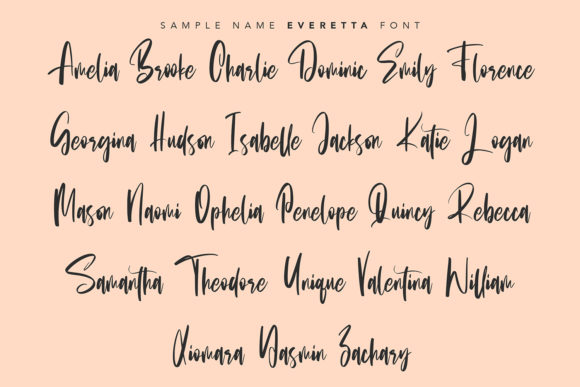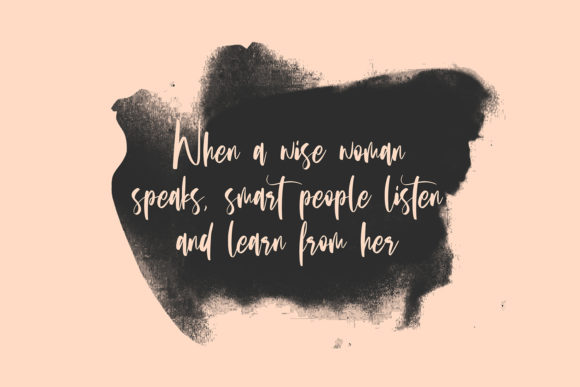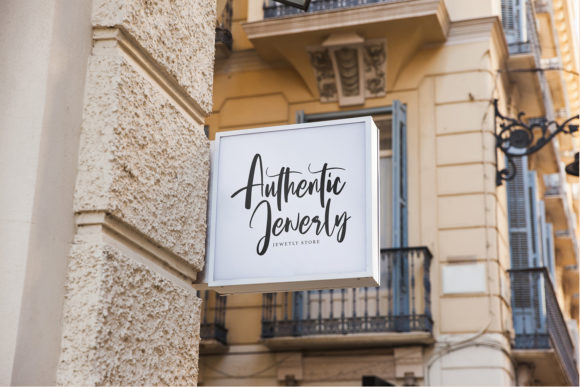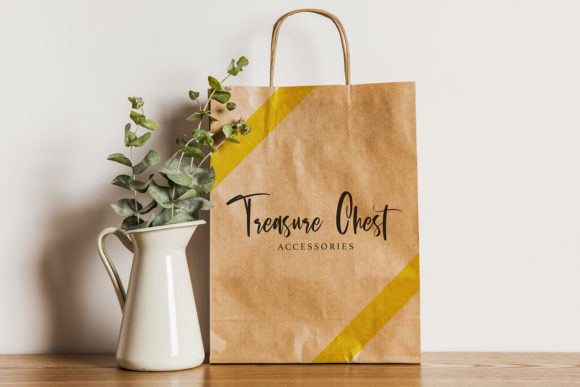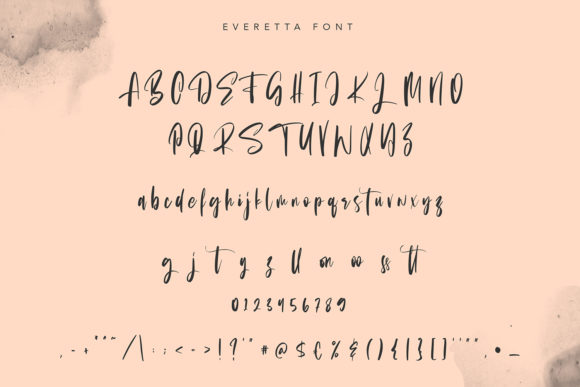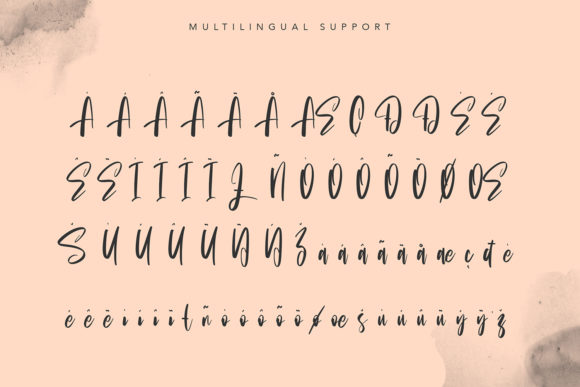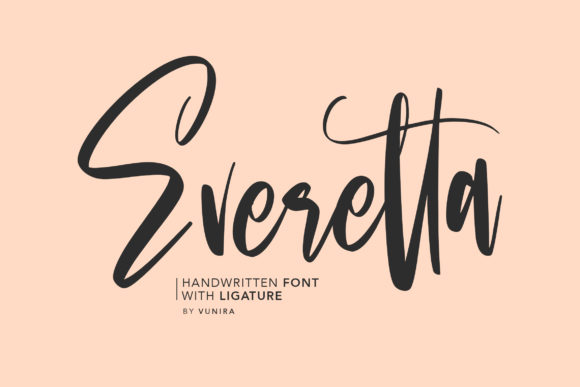
Discover the Elegance of Everetta Font: Elevate Your Designs with a Touch of Sophistication
Are you on the hunt for a font that exudes elegance, sophistication, and a dash of modern flair? Look no further than the Everetta Font, a stunning handwritten typeface that is sure to capture your heart. Designed with meticulous attention to detail, Everetta seamlessly blends classic calligraphic influences with a contemporary twist, making it the perfect addition to your design arsenal.
The Story Behind Everetta Font
Everetta Font is more than just a collection of letters; it’s a masterpiece crafted with passion and dedication. Its creator aimed to develop a font that not only pays homage to traditional calligraphy but also feels fresh and current. The result is a typeface that is both timeless and trendy, capable of enhancing any project with its unique charm.
What Makes Everetta Font Stand Out?
- Classy Calligraphic Influences: Everetta’s roots in calligraphy are evident in its fluid strokes and elegant letterforms. Each character is designed to reflect the beauty of handwritten calligraphy, giving your designs a personal and sophisticated touch.
- Contemporary and Fresh: While Everetta maintains a strong foundation in traditional calligraphy, it also boasts a modern sensibility that makes it versatile for a wide range of applications. Whether you’re working on a branding project, a wedding invitation, or a digital platform, Everetta fits right in.
- Versatility: One of the key advantages of Everetta Font is its incredible versatility. It can be used for everything from headlines and titles to body text, offering a consistent and stylish look across your designs.
- Emotional Connection: Fonts have the power to evoke emotions and set the tone for your message. Everetta, with its warm and inviting appearance, helps create a connection with your audience, making your designs more relatable and engaging.
How to Use Everetta Font in Your Projects
Integrating Everetta Font into your projects is a straightforward process that can elevate your designs in a significant way. Here are a few ideas to get you started:
- Branding and Logotypes: Use Everetta to create a memorable brand identity that stands out from the competition. Its unique and stylish letterforms can help your brand leave a lasting impression.
- Wedding and Event Stationery: Add a touch of elegance to your wedding invitations, save-the-dates, and other event materials with Everetta’s beautiful calligraphic style.
- Digital and Print Media: Whether you’re designing a website, a magazine, or an advertisement, Everetta can add a layer of sophistication and charm to your content.
- Packaging and Product Design: Stand out on store shelves with packaging that features Everetta Font. Its distinctive look can make your product more noticeable and appealing to potential customers.
Tips for Maximizing the Impact of Everetta Font
To get the most out of Everetta Font, consider the following tips:
- Pair it Wisely: Combine Everetta with complementary fonts to create visual interest and hierarchy in your designs.
- Experiment with Colors: While Everetta looks stunning in classic black and white, don’t be afraid to experiment with colors that match your brand or project’s aesthetic.
- Play with Sizes: Take advantage of Everetta’s versatility by using it in various sizes, from large headlines to smaller body text.
Everetta Font is a game-changer for designers and crafters looking to infuse their projects with a dose of elegance and modernity. Its exquisite handwritten design, coupled with its versatility and emotional appeal, makes it an invaluable tool in your creative toolkit. Whether you’re aiming to create stunning brand identities, beautiful stationery, or captivating digital content, Everetta is sure to become your new favorite font. So why wait? Fall in love with Everetta and take your designs to the highest levels!